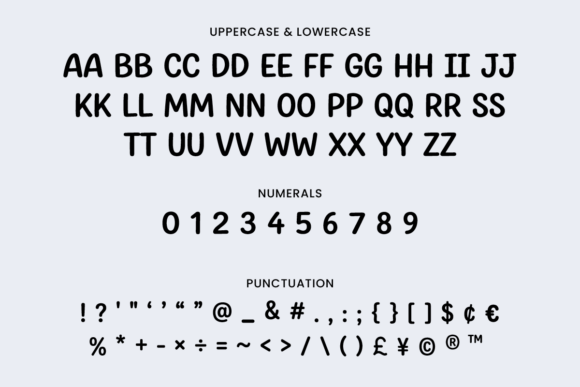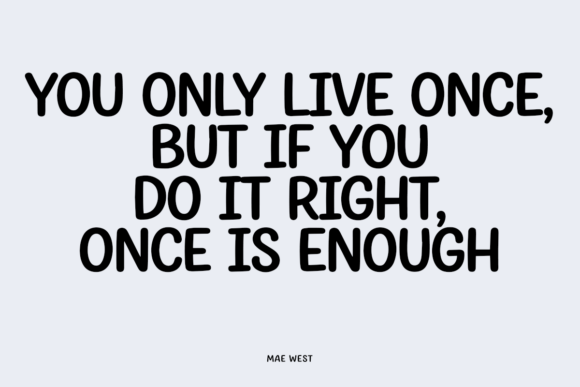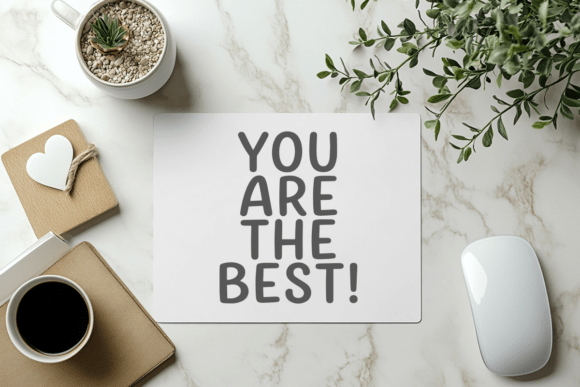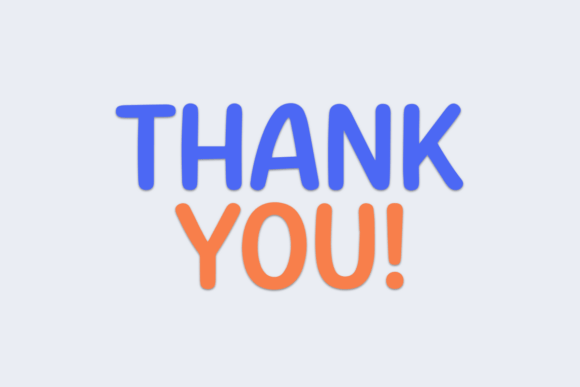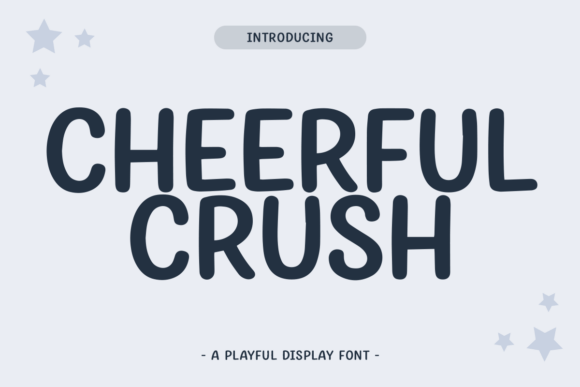
Meet Cheerful Crush: The Font That Spreads Joy and Happiness
In the world of typography, fonts can evoke emotions and set the tone for any design project. If you’re looking for a typeface that exudes warmth, friendliness, and playfulness, look no further than Cheerful Crush. This delightful font is designed to bring a burst of joy to every word you create, making it perfect for designers and crafters who want to add a touch of whimsy to their work.
The Personality of Cheerful Crush
Cheerful Crush is a lively and heartwarming font that captures the feeling of carefree moments and sweet, everyday happiness. Its playful curves, bouncy letterforms, and friendly personality make it an ideal choice for branding, invitations, social media graphics, and creative projects that call for a touch of fun. Whether you’re designing a logo, creating a social media post, or crafting a handmade card, Cheerful Crush effortlessly adds warmth and charm to your designs.
Key Features of Cheerful Crush
- Playful Curves: Cheerful Crush features playful curves that give it a lighthearted and carefree feel.
- Bouncy Letterforms: The font’s bouncy letterforms add to its playful personality, making it perfect for designs that require a touch of whimsy.
- Approachable Style: Cheerful Crush has an approachable style that makes it ideal for both bold headlines and lighthearted messages.
- Easy to Read: Despite its playful nature, Cheerful Crush is easy to read, making it perfect for designs that require a clear and concise message.
Cheerful Crush is a versatile font that is perfect for designers and crafters who want to add a touch of fun to their work. Whether you’re creating a brand identity, designing a social media graphic, or crafting a handmade card, this font is sure to bring a smile to your audience’s face. Its friendly personality and approachable style make it an ideal choice for:
- Branding: Use Cheerful Crush to create a brand identity that exudes warmth and friendliness.
- Invitations: Add a touch of whimsy to your invitations with Cheerful Crush.
- Social Media Graphics: Use Cheerful Crush to create social media graphics that are sure to grab your audience’s attention.
- Handmade Crafts: Add a personal touch to your handmade crafts with Cheerful Crush.
Tips for Using Cheerful Crush
Here are some tips for using Cheerful Crush in your designs:
- Mix and Match: Mix and match Cheerful Crush with other fonts to create a unique and playful look.
- Experiment with Colors: Experiment with different colors to find the perfect combination that complements Cheerful Crush.
- Use it for Headlines: Use Cheerful Crush for headlines to add a touch of whimsy to your designs.
- Use it for Body Text: Use Cheerful Crush for body text to add a personal touch to your designs.
Cheerful Crush is a delightful font that is sure to bring a burst of joy to every word you create. Its playful curves, bouncy letterforms, and friendly personality make it an ideal choice for designers and crafters who want to add a touch of fun to their work. Whether you’re creating a brand identity, designing a social media graphic, or crafting a handmade card, Cheerful Crush is the perfect font for spreading smiles through design.